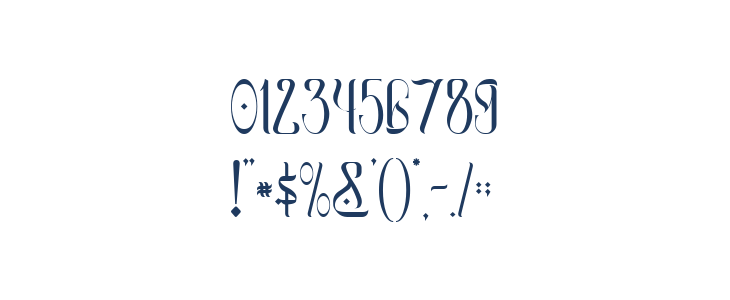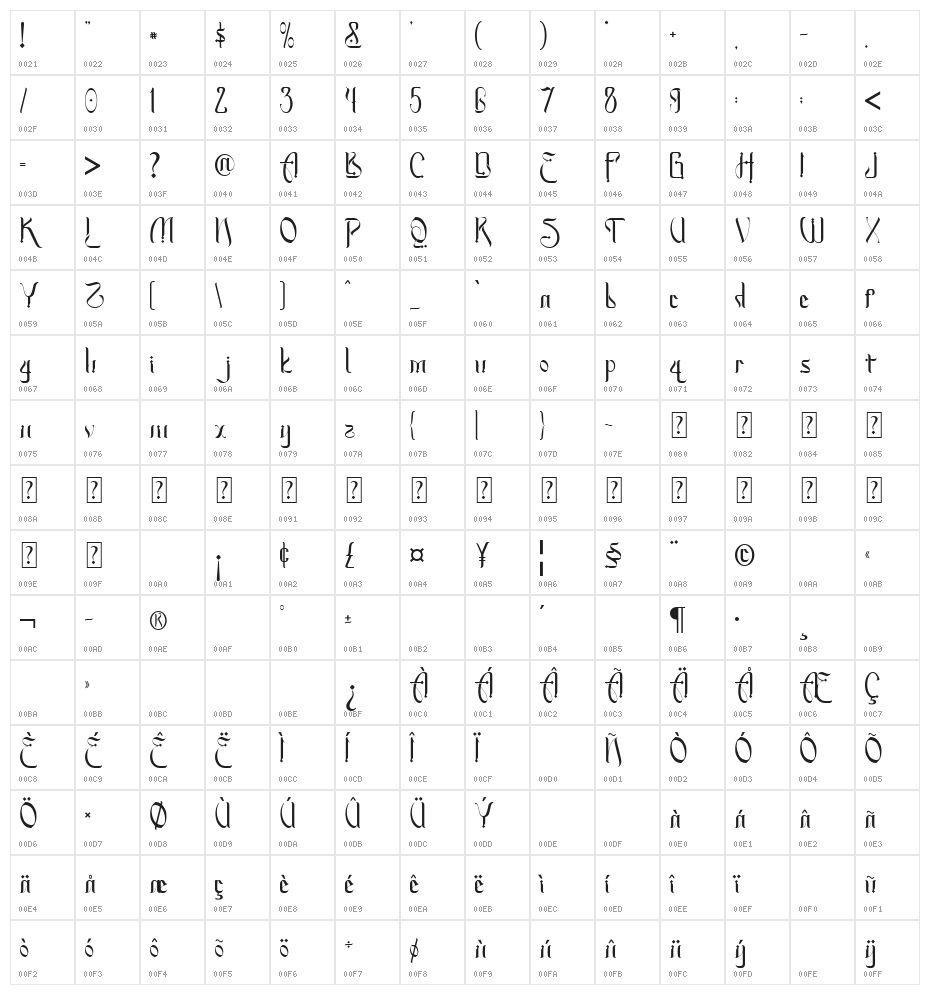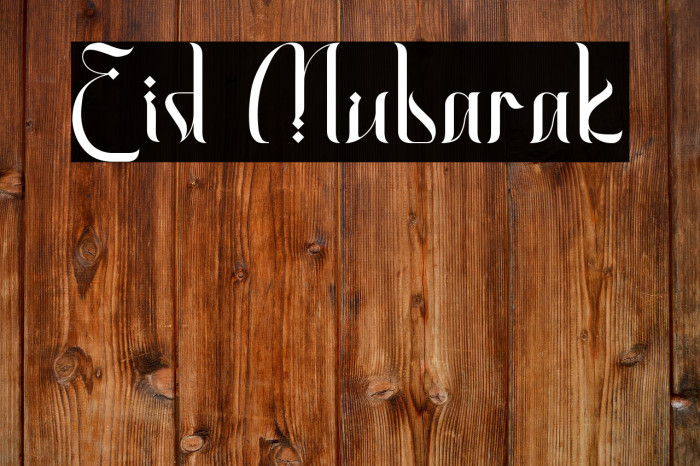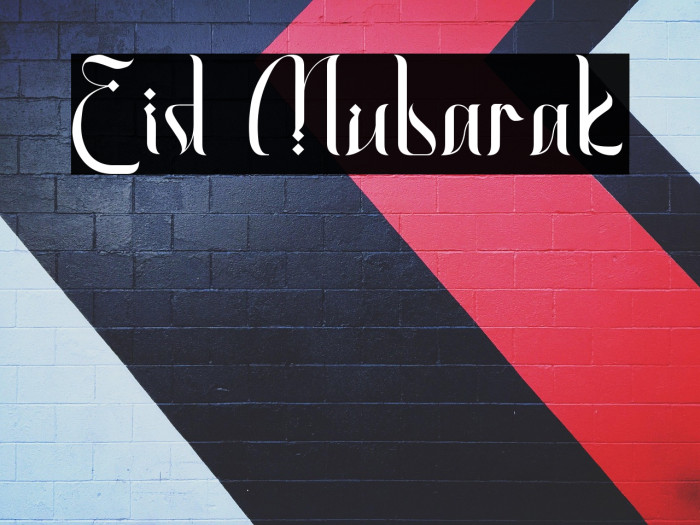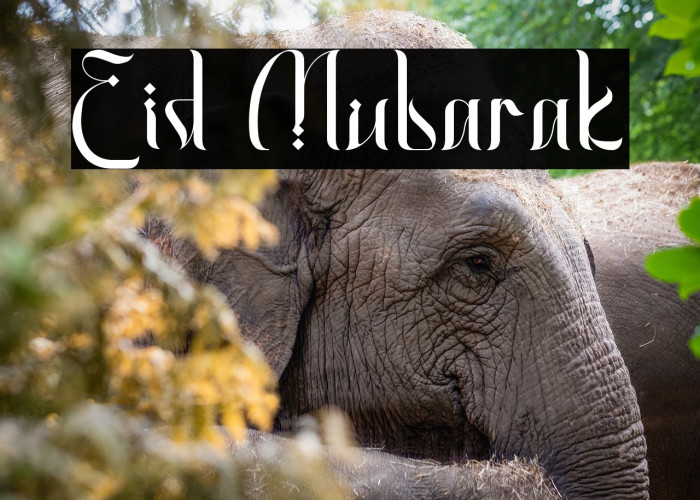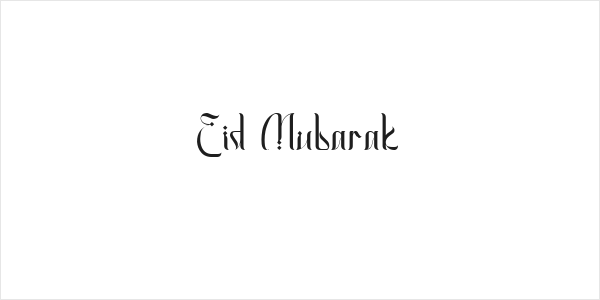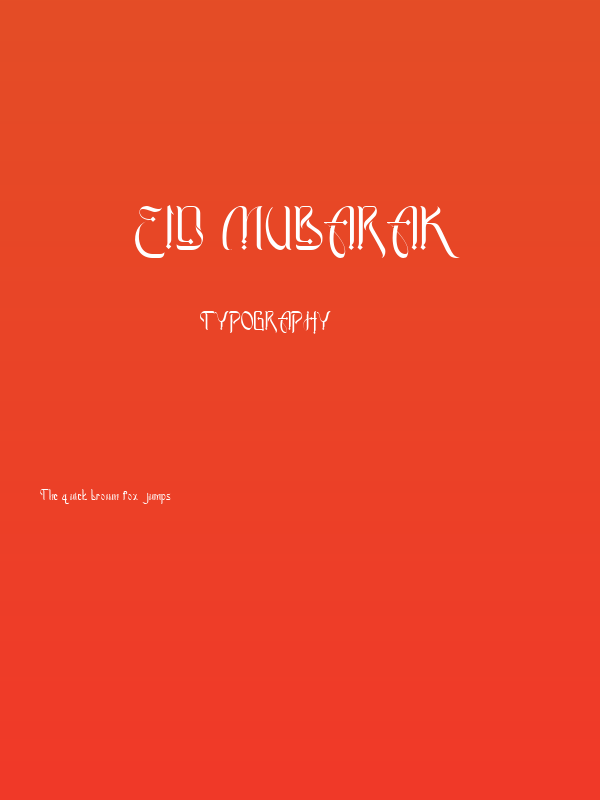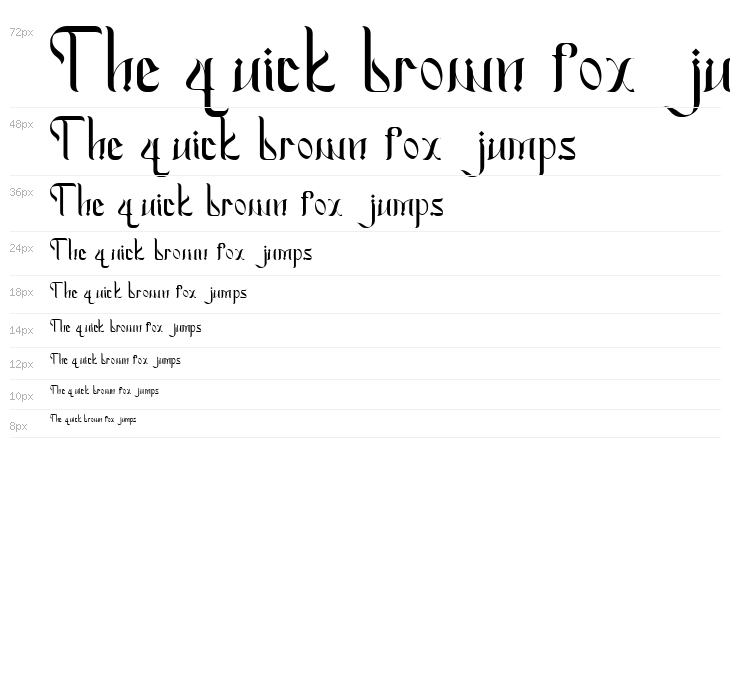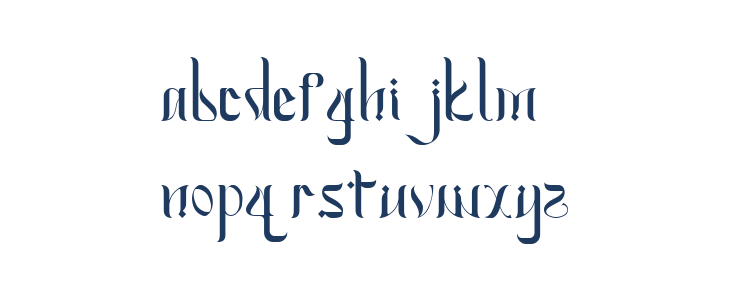
Eid Mubarak Font
Eid Mubarak Description
This font features a unique and artistic design with a blend of modern and traditional elements. The uppercase letters have a distinct, ornamental style with intricate curves and loops, giving them a decorative appearance. The lowercase letters maintain a similar aesthetic, with elegant strokes and a flowing form. The numbers are stylized, matching the overall theme, and the special characters are creatively designed to complement the font's artistic nature. This font is ideal for projects that require a touch of elegance and creativity, such as invitations, greeting cards, and branding materials.
| Proposed Projects | Ideal for invitations, greeting cards, branding, and decorative projects. |